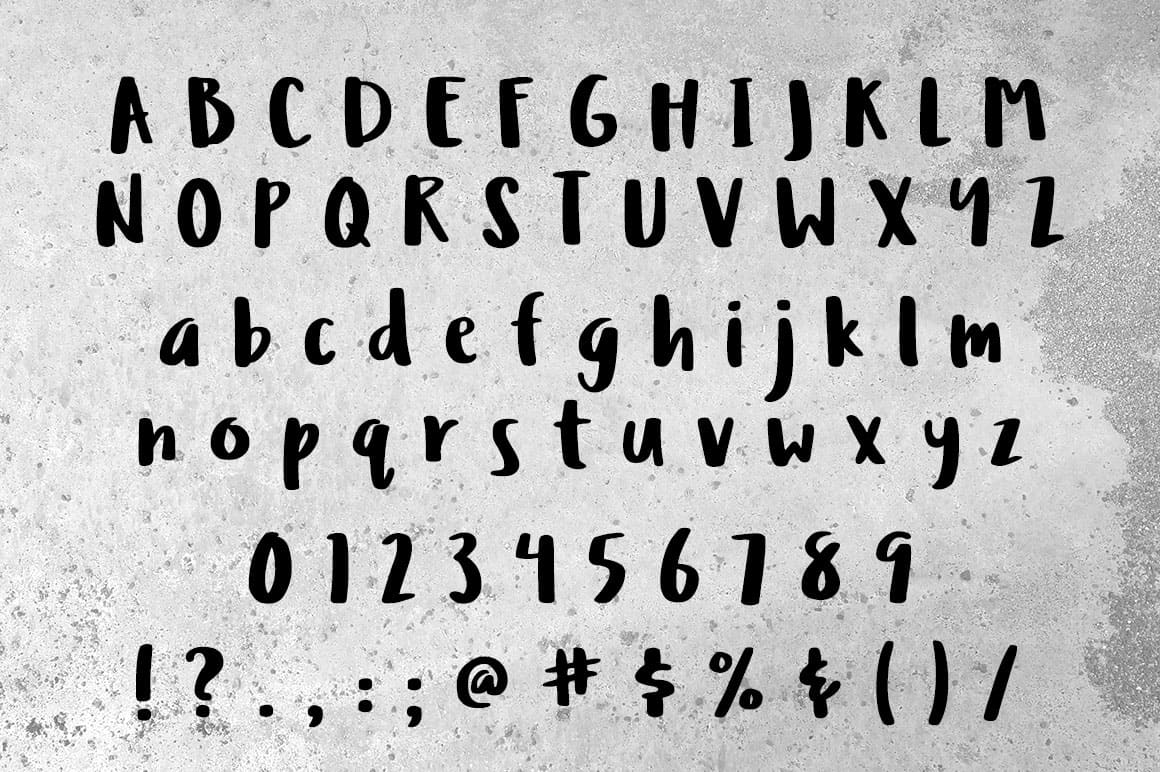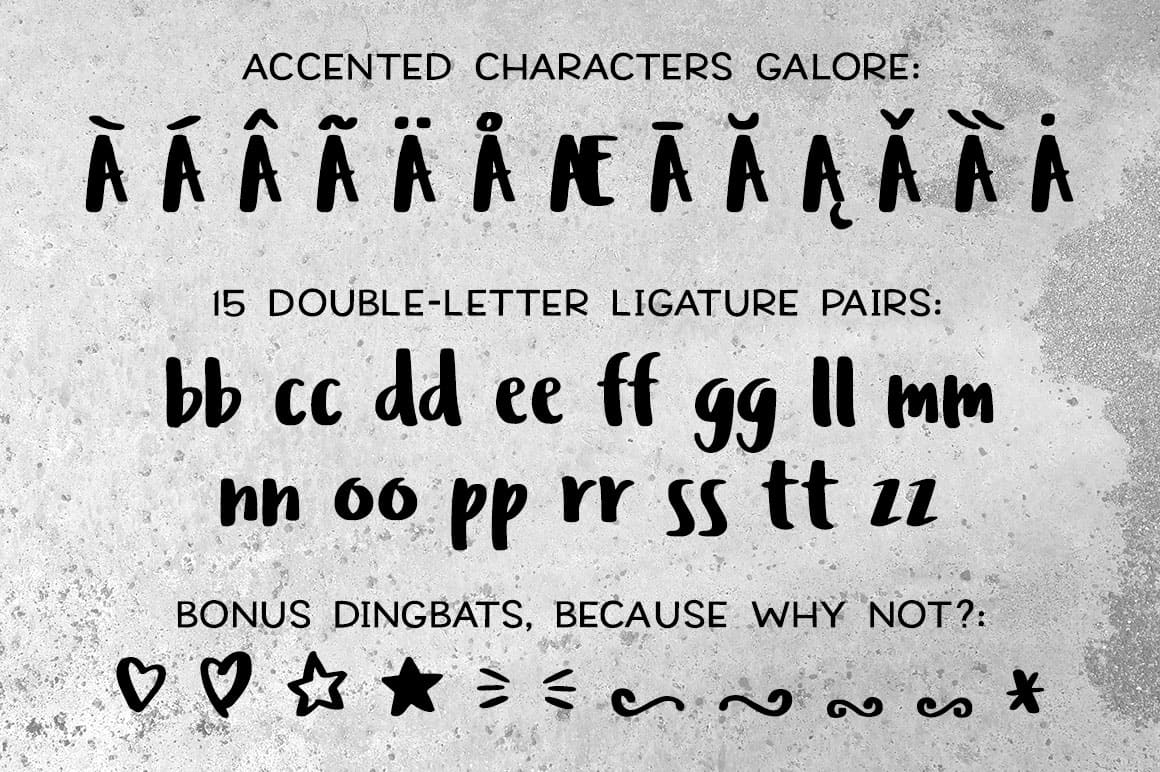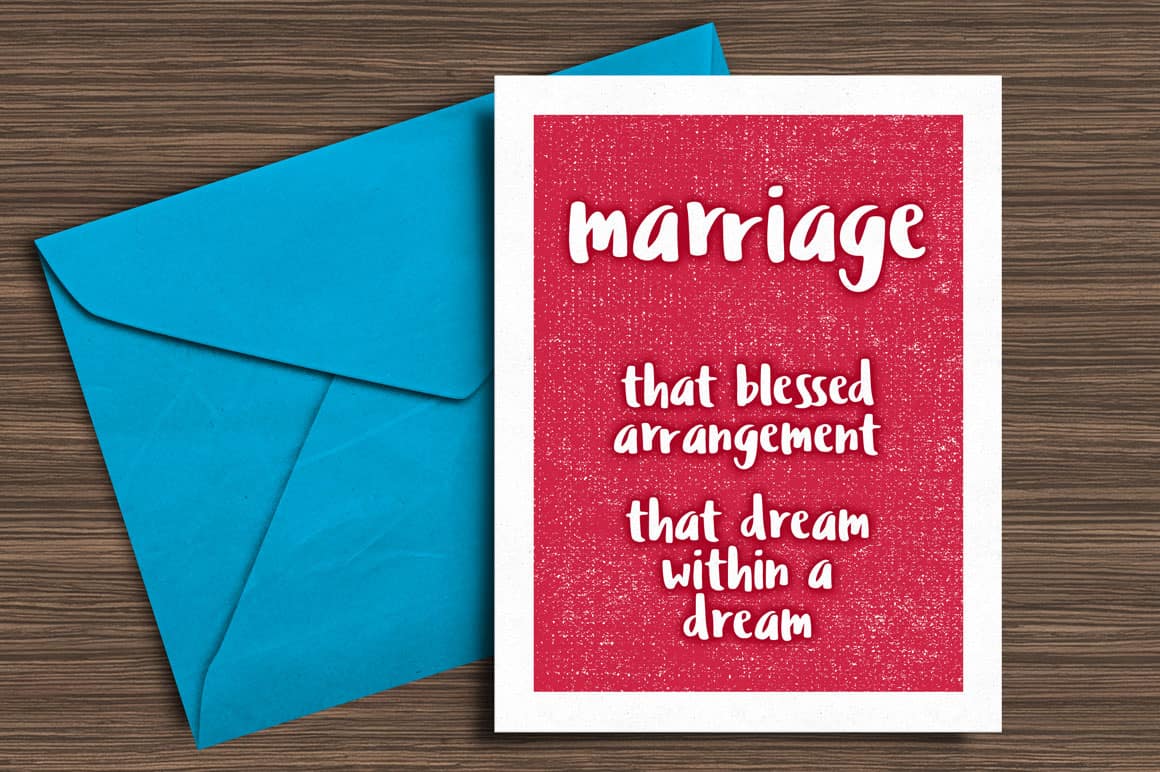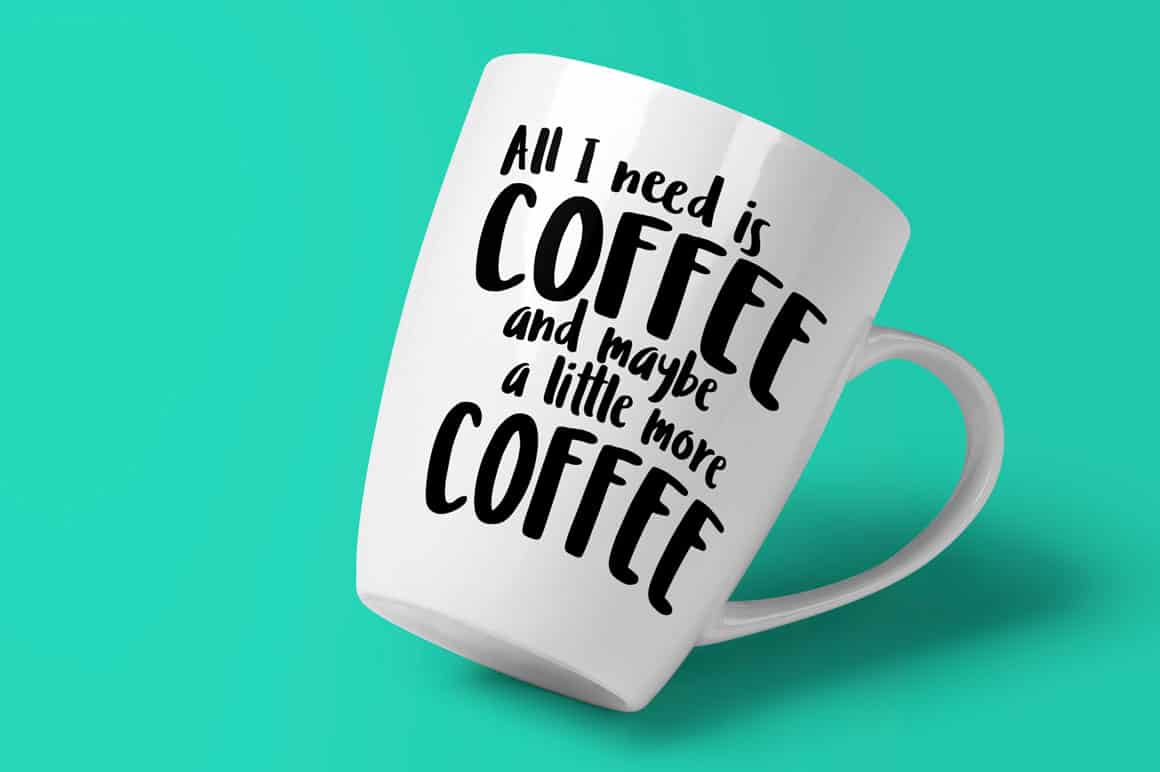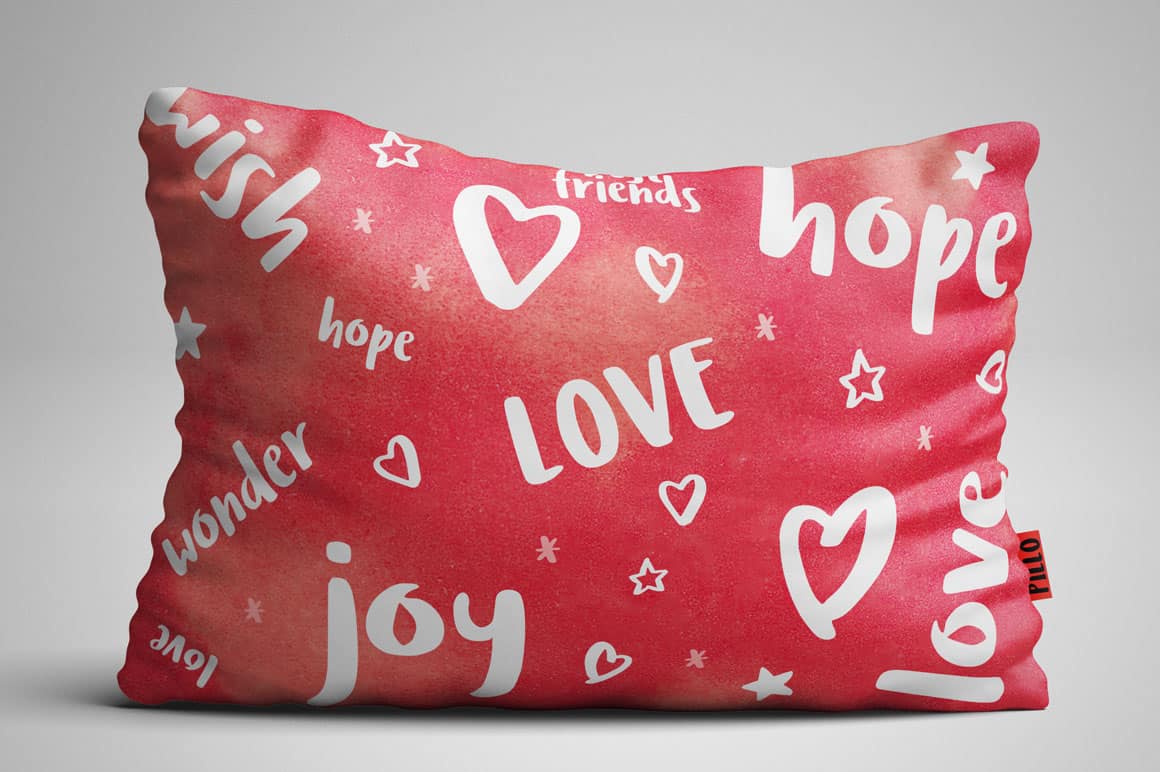
Ludicrous
Ludicrous Font
Ludicrous Alpha Base
Ludicrous Alpha Extras
Ludicrous Mock Card
Ludicrous Mock Mug
Ludicrous Mock Pillow
About the Ludicrous Font
A free handwriting typeface, good for 1,001 projects!
It’s time for another free font!
With every font, I learn something new. This time around, I did my first ligatures. I’ve included the 15 lowercase letter pairs I thought were most common. (I skipped over “uu,” because I don’t know about you, but I don’t type “vacuum” all that often.) (Note: I hadn’t included “cc” originally. But the more I thought about it, the more words I thought of with that double-c in them. So I added “cc” to the mix.)
I’ve also added in a few little extras in the Private Use Area.